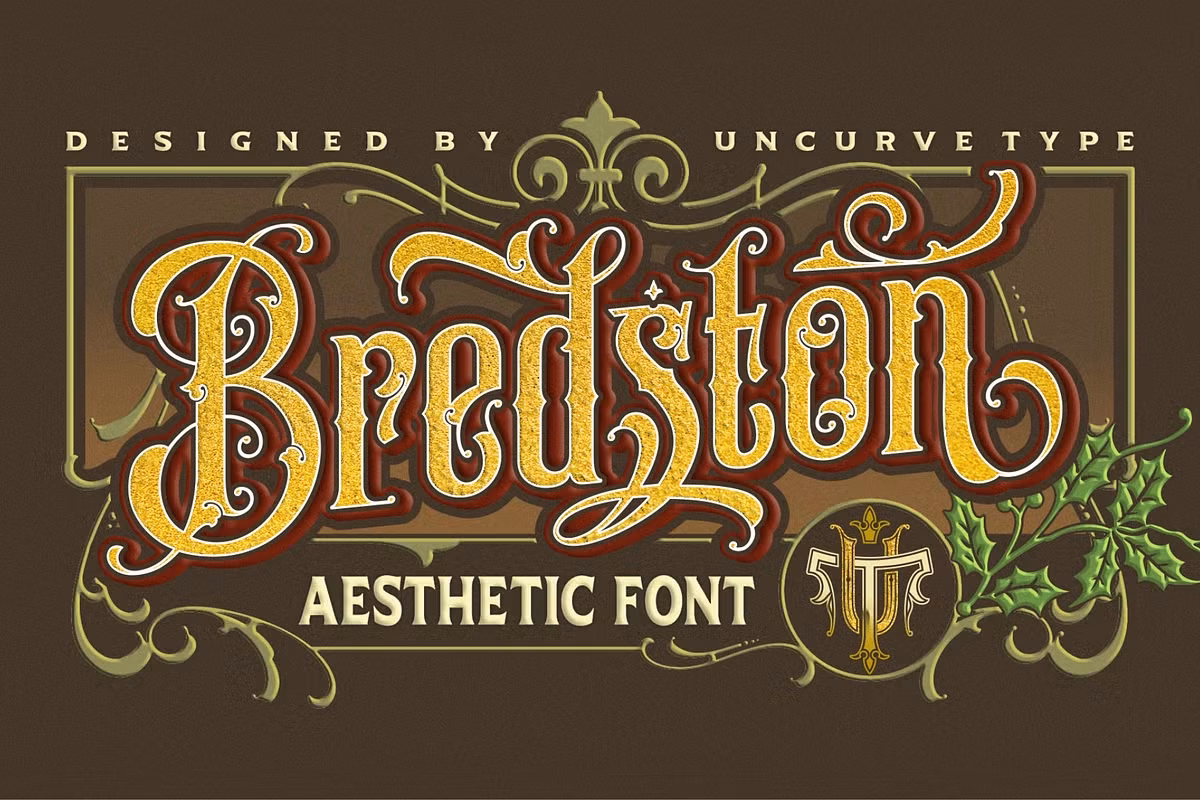
The Bredston Vintage Font Free Download is a bold and nostalgic typeface inspired by classic Americana, retro signage, and vintage branding. Its rugged charm and handcrafted feel make it perfect for logos, t-shirts, posters, barbershop branding, whiskey labels, and any design that craves an old-school touch with modern appeal.
This font stands out with its textured edges, strong presence, and vintage authenticity. It includes alternate characters, stylistic options, and multilingual support, giving designers the flexibility to create standout visuals with a nostalgic edge. Whether you're designing for a throwback event or launching a heritage-inspired brand, Bredston brings character and soul to every letter.